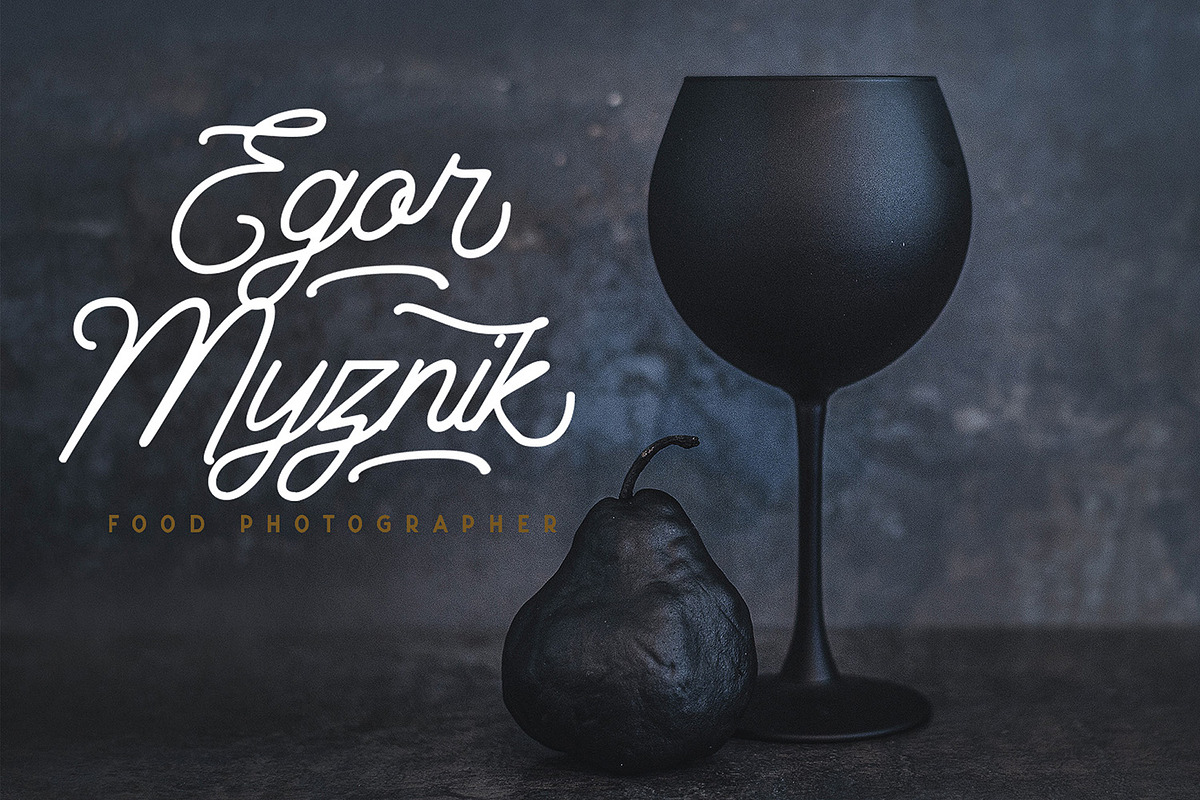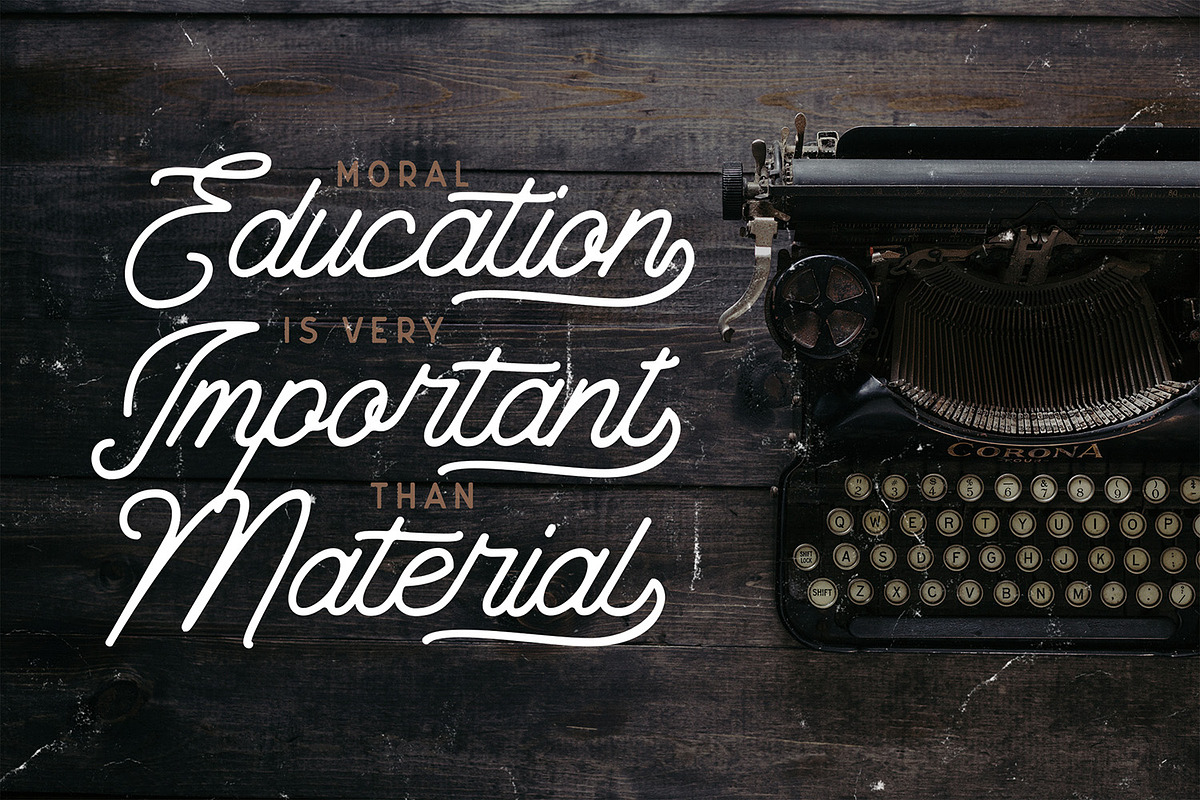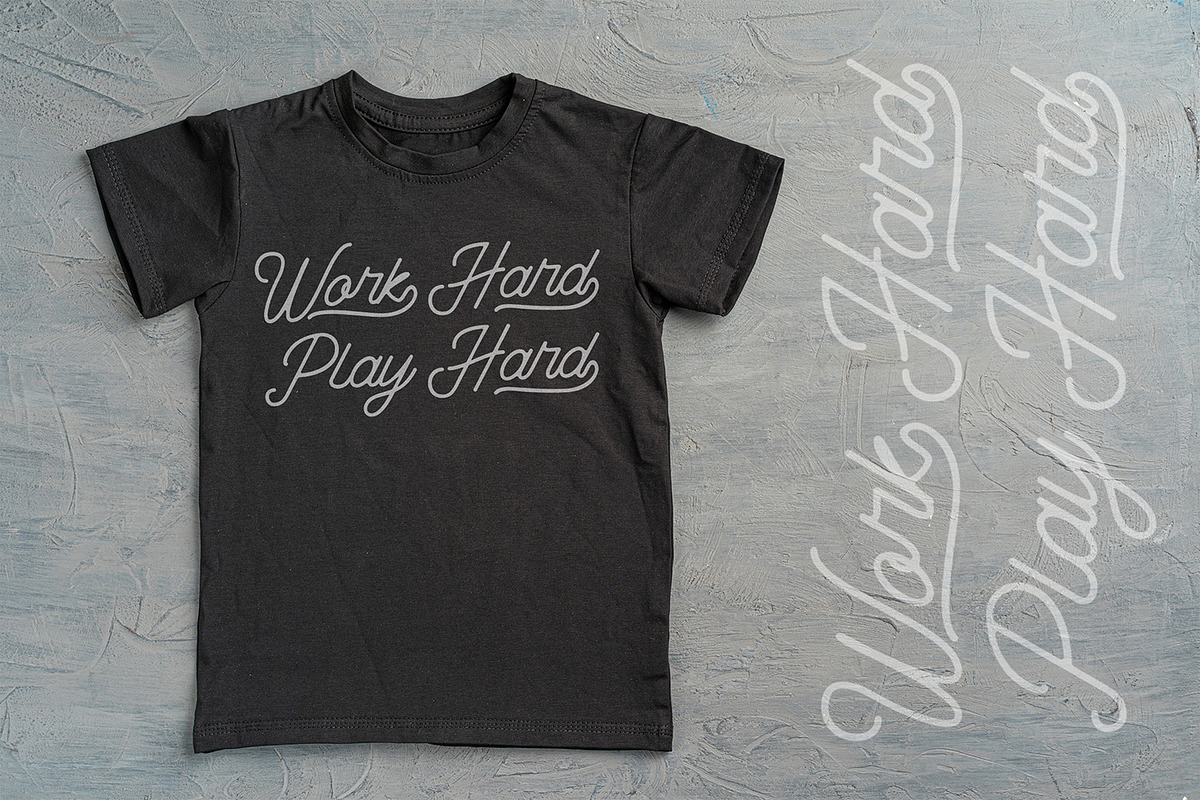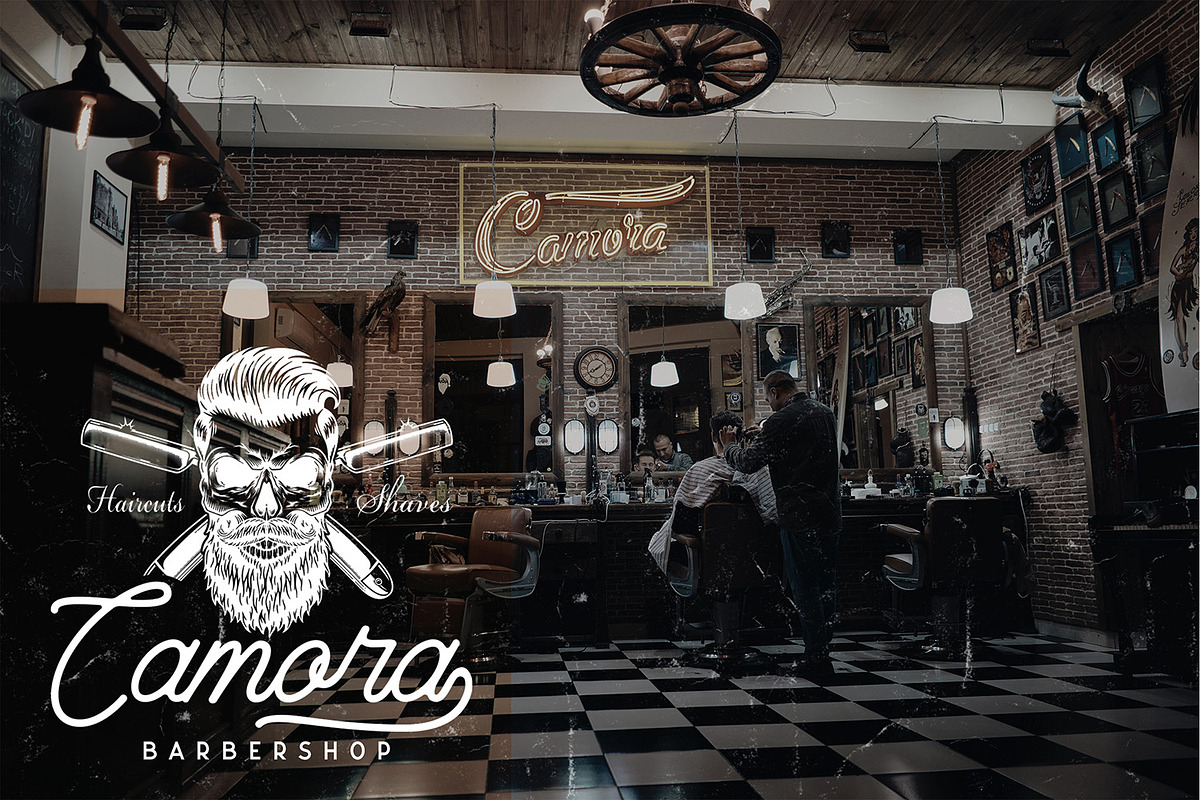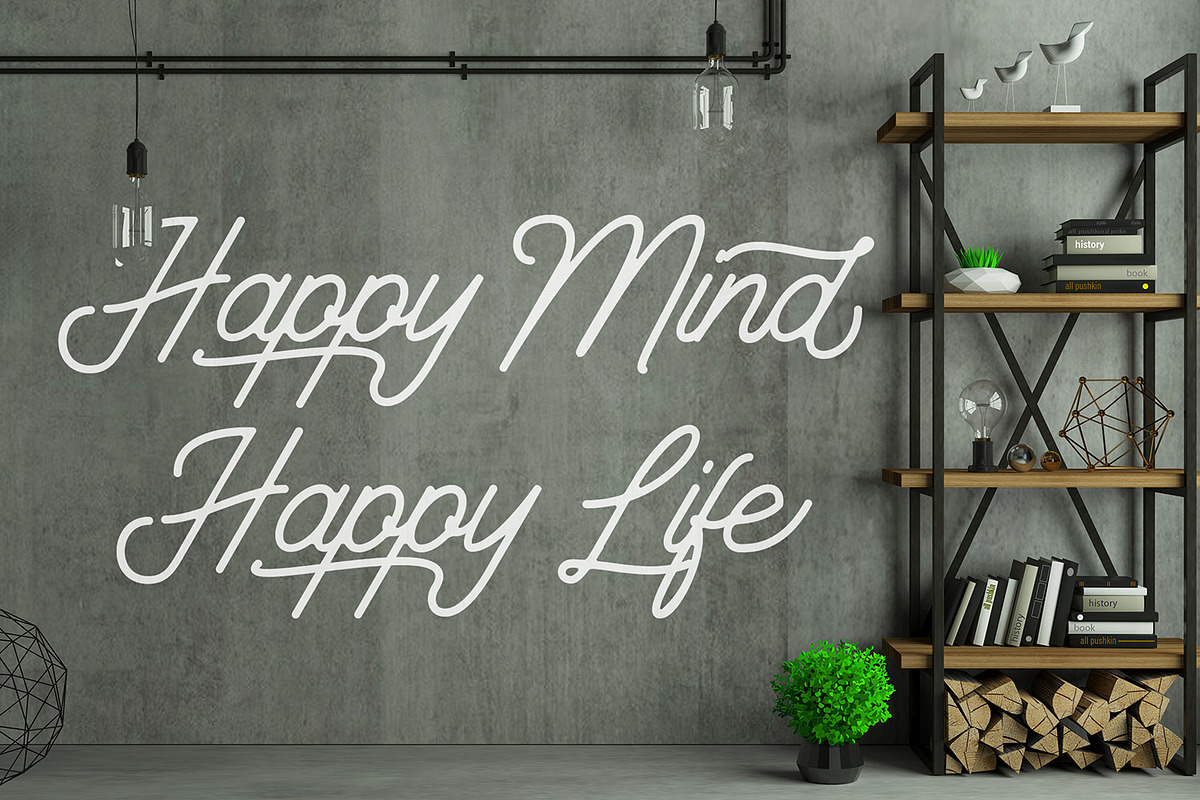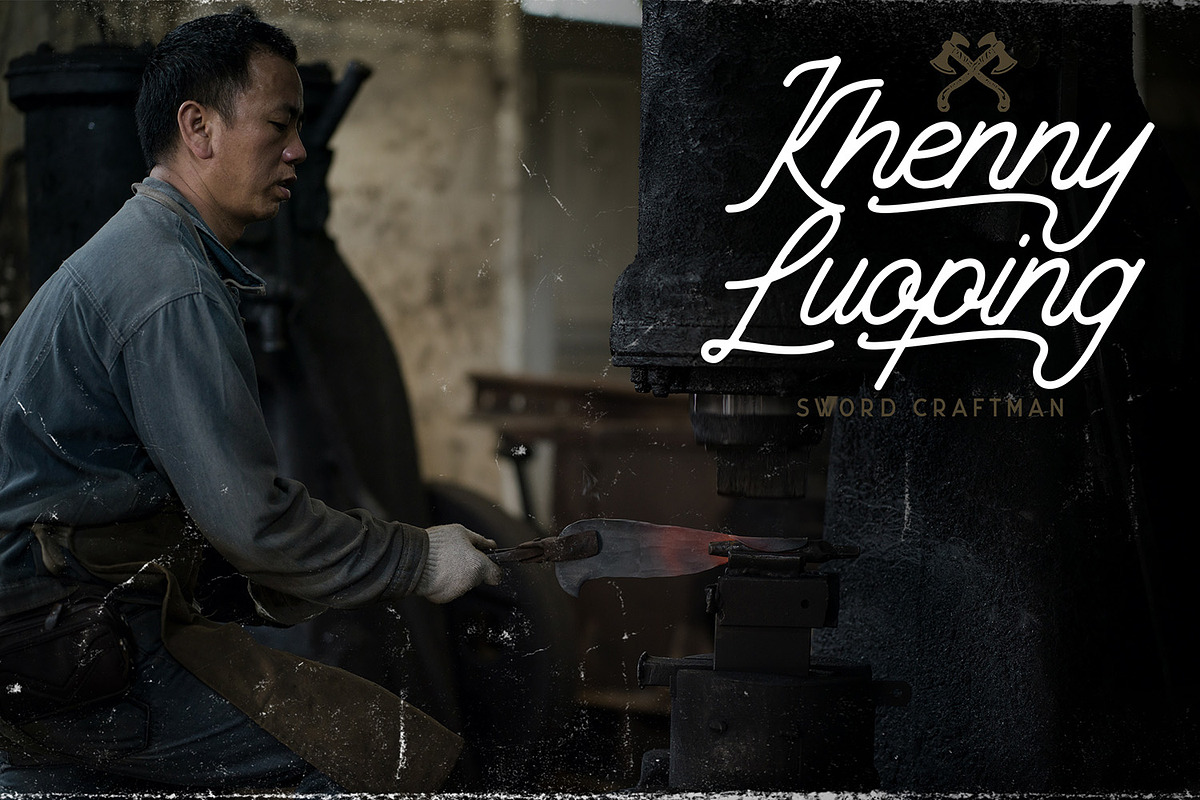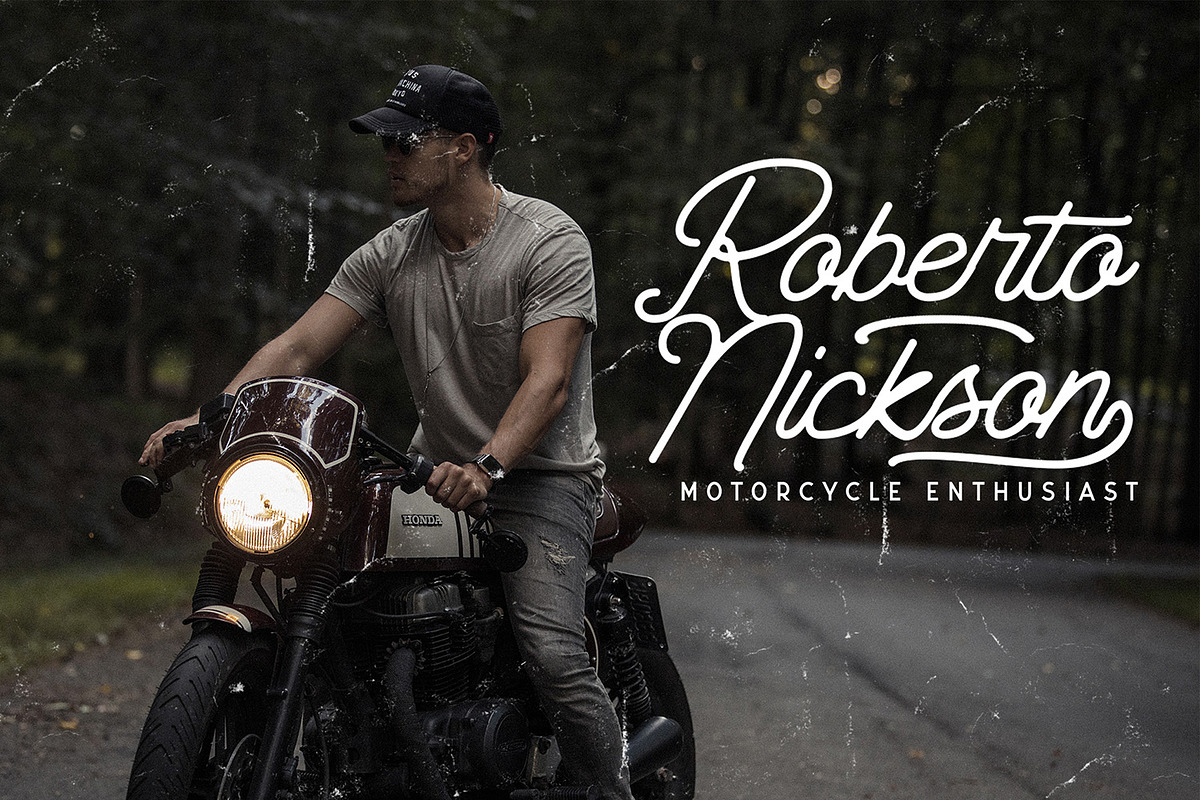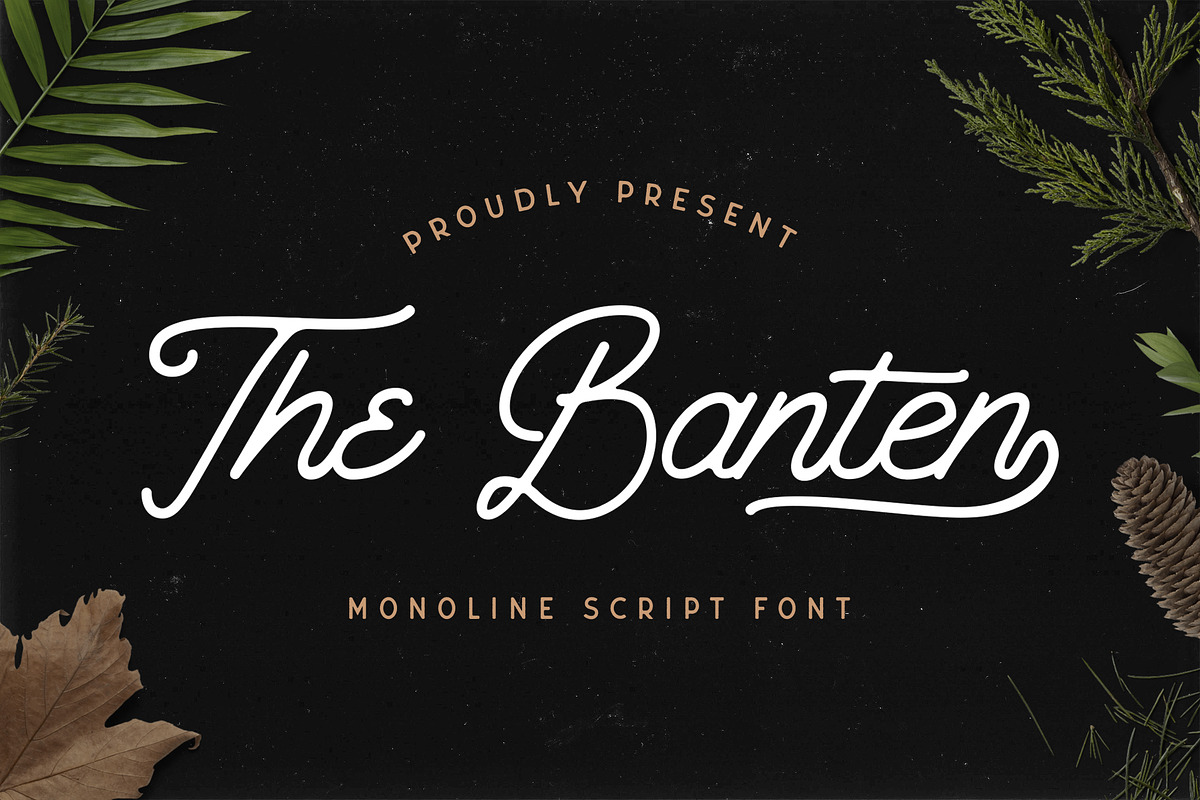
The Banten - Monoline Script Font
Introducing The Banten - Monoline Script Font
The Banten is a Monoline Script Font with Retro Vintage Style. This font is perfect for fashion brand, apparel, shoes company, wedding invitation, business card, logo brand, clothing, and also business brand name like barber shop or taylor.
- This Font Template contains Classy, Elegant, Creative, and has a Unique Concept.
Why The Banten - Monoline Script Font is worth a look
The Banten - Monoline Script Font by StringLabs fits naturally into Branding, posters, packaging, typography.